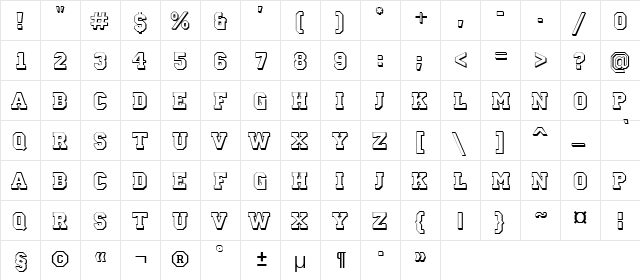
a_CampusOtlSh Bold Font Preview
a_CampusOtlSh Bold
Design Context for a_CampusOtlSh Typeface
a_CampusOtlSh is a composed and adaptable typeface that performs quietly and consistently across a wide range of design contexts. The heavy weight commands attention and anchors typographic hierarchies.